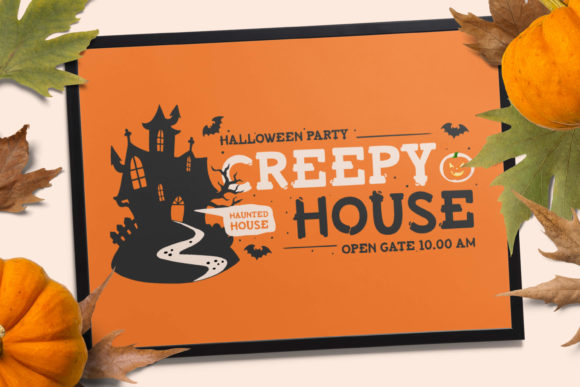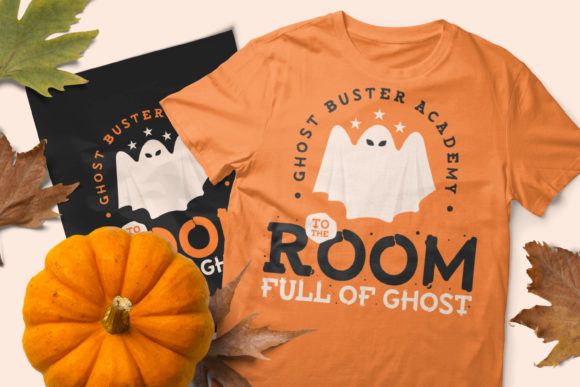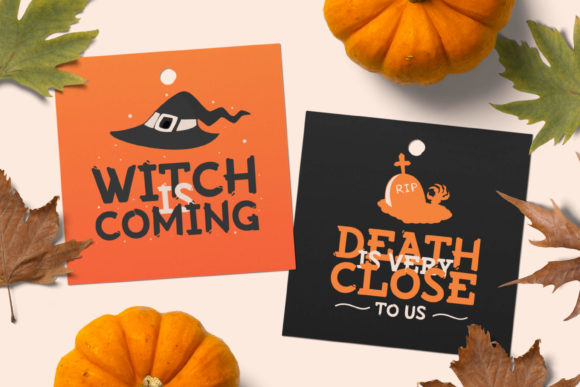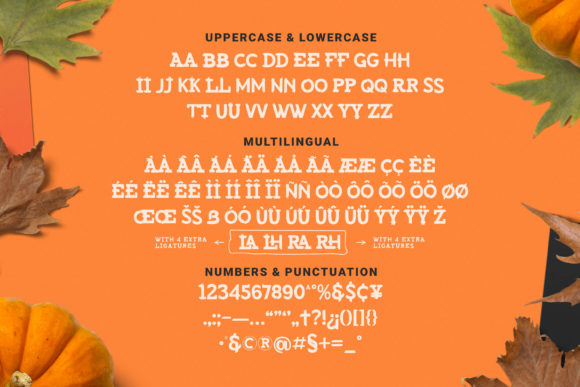
Unleash Your Spooky Creativity with the Blueray Font
Do you remember the moment when you stumbled upon that perfect font that made your design pop? For many designers, it’s that instant spark that sets their creative juices flowing. As the spooky season approaches, you might be on the hunt for a font that captures the essence of Halloween. Look no further than the Blueray Font, a thick-lettered and eerie display font that’s sure to cast a spell on your audience.
Perfect for any Halloween-related project or crafty idea, the Blueray Font is a valuable addition to any designer’s toolkit. With its bold and mysterious vibe, it’s the ideal choice for creating eye-catching graphics, posters, or even spooky typography. Whether you’re a seasoned designer or a crafty enthusiast, the Blueray Font is sure to unleash your creativity and help you bring your spooky ideas to life.
Blueray Font Key Features
- Unique Characteristics: Blueray Font features a unique blend of modern and elegant design elements, including subtle texture and nuanced letterforms, making it suitable for a variety of design projects.
Blueray Font Review
When I first laid eyes on the Blueray font, I was struck by its unique blend of modern and vintage elements ✨. The font’s rounded edges and subtle flair make it a great choice for any project that needs a touch of sophistication. I particularly enjoy using it for titles and headings, as it adds a level of elegance that’s hard to achieve with more generic fonts.
One of the things that sets Blueray apart is its excellent legibility ✨. Even at smaller font sizes, the characters remain clear and easy to read. This makes it a great choice for body text or any situation where readability is crucial.
Overall, I’m impressed with the Blueray font. While it may have some limitations, its unique design and excellent legibility make it a great choice for any project that needs a touch of class ✨. If you’re looking for a font that will elevate your design, Blueray is definitely worth considering.
Tips for Getting the Most Out of Blueray Font
For best results, use Blueray Font in conjunction with bold or italic styles to create visual contrast. Experiment with different font sizes and colors to achieve a unique look.
Blueray Font is ideal for use in logos, headings, and titles. It can also be used in body text for a more dramatic effect. Consider using Blueray Font in creative projects, such as book covers, posters, or social media graphics.